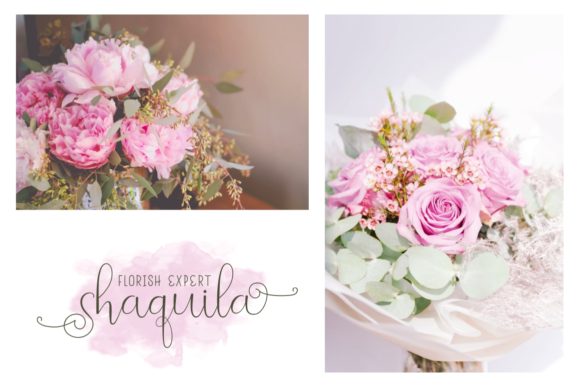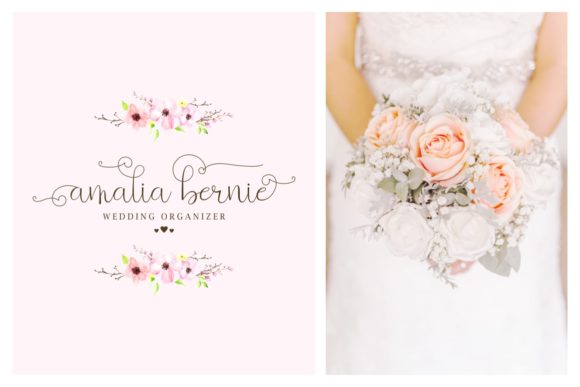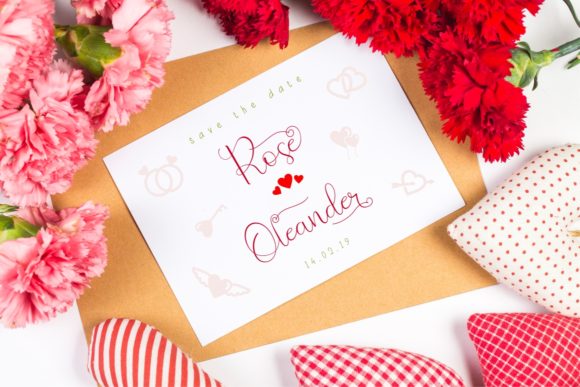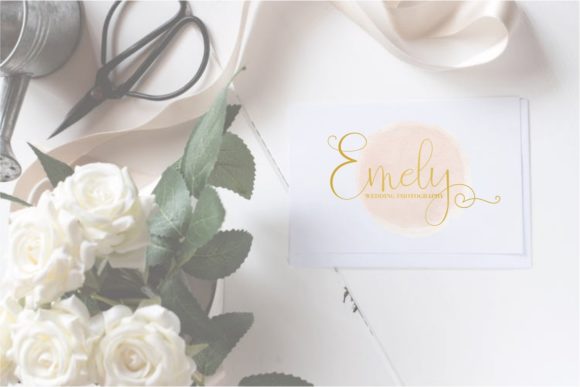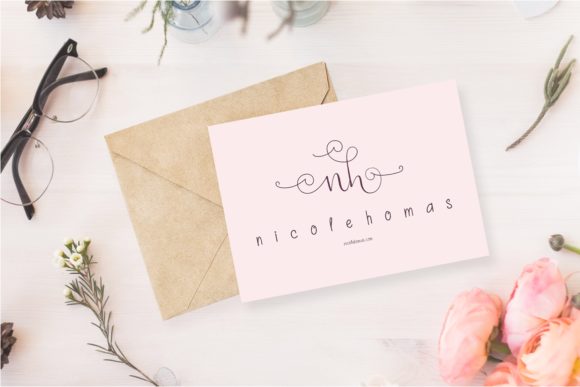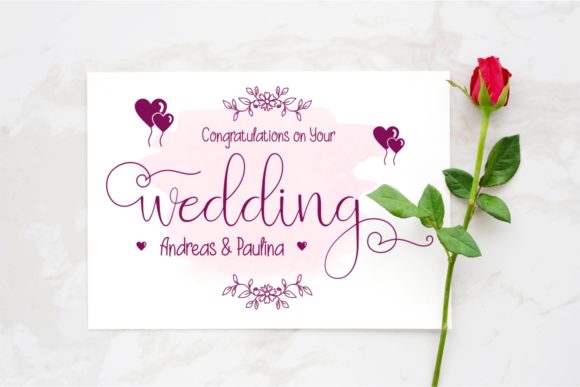
The Perfect Pair: Elevating Your Designs with Beauty and Love Duo Font
Have you ever stared at a blank page, searching for the perfect font to capture the essence of your design? The struggle is real, but what if you could find a font that speaks directly to your creative soul? For designers, the quest for the perfect typography is a constant pursuit, and that’s where the Beauty and Love Duo Font comes in – a harmonious union of style and emotion that’s sure to elevate your designs to new heights.
Comprising of three styles – script, sans, and dingbat – this elegant font duo offers a wealth of creative possibilities. Whether you’re crafting a wedding invitation, a quote, or a print, the Beauty and Love Duo Font is the perfect companion to help you bring your vision to life. Its value lies in its versatility, allowing designers to experiment with different styles and combinations to create something truly unique and breathtaking.
Beauty and Love Duo Font Key Features
- Unique Characteristics: The font features a beautiful, elegant design with a mix of cursive and script elements, perfect for creating romantic and sophisticated typography.
- Character Set: The font includes a wide range of characters, including uppercase and lowercase letters, numbers, and punctuation marks, making it suitable for use in various languages.
- Font Style: The font has a beautiful, flowing style with intricate details, making it ideal for use in invitations, wedding designs, and other romantic projects.
Beauty and Love Duo Font Review
As a designer, I was excited to dive into the “Beauty and Love Duo Font”. Here’s my honest review.
- The font is incredibly versatile, with two distinct styles that can be used together or separately.
- The pairing of “Beauty” and “Love” is perfect for creating a romantic and elegant atmosphere in any design.
- The font is highly legible, making it perfect for body text, headings, and even signage.
- The font family includes a wide range of weights and styles, giving designers plenty of options for customizing their designs.
- The font may be too ornate for some designs, potentially overwhelming the user.
- The font family is not as extensive as some other popular font families, limiting its versatility in certain situations.
Overall, I’m impressed with the “Beauty and Love Duo Font”. It’s a beautiful and elegant font that’s perfect for romantic designs, wedding invitations, and more. While it may have some limitations, I believe it’s a great addition to any designer’s toolkit.
For the best results, use the Beauty and Love Duo Font for romantic and feminine designs, such as wedding invitations, baby announcements, or Valentine’s Day cards.
Experiment with different font sizes and colors to create a visually appealing effect.
Alternatives to “Beauty and Love Duo Font” for Designers
Great Vibes is a beautiful, elegant script font perfect for creating a romantic atmosphere. It’s ideal for wedding invitations, love quotes, and any design that requires a touch of sophistication.
Compared to Beauty and Love Duo Font, Great Vibes has a more refined and delicate feel, making it suitable for high-end designs. However, it lacks the bold and playful aspects of Beauty and Love Duo Font.
Carolyna Pro is a modern script font with a feminine touch. It’s great for designs that need a mix of elegance and playfulness, such as fashion magazines, advertising, and social media graphics.
Compared to Beauty and Love Duo Font, Carolyna Pro has a more contemporary feel and a wider range of styles, making it more versatile for various design projects. However, it may lack the unique, hand-drawn quality of Beauty and Love Duo Font.